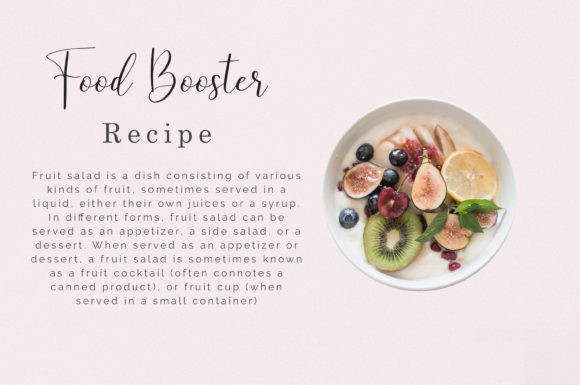
Young & Darling Font
Young & Darling pays tribute to classic calligraphy with its gorgeous swashes and ligatures. With its light and charming characters, it will add a soft playfulness to a wide variety of designs.